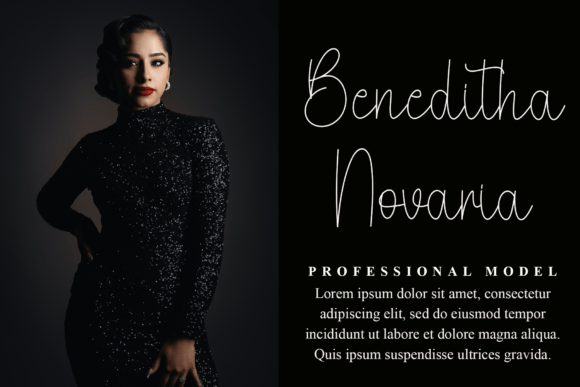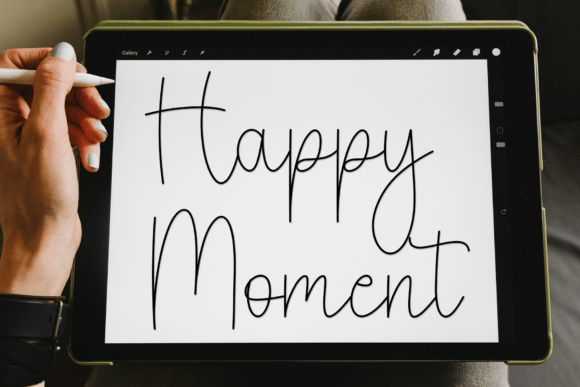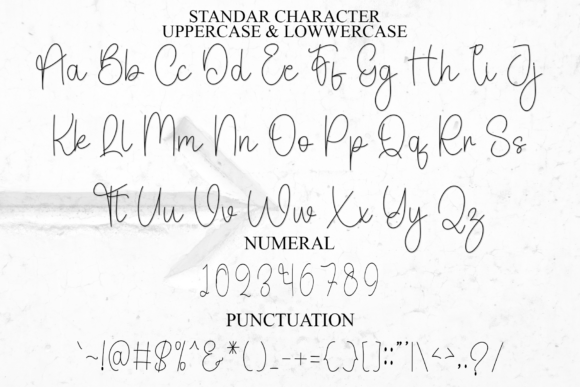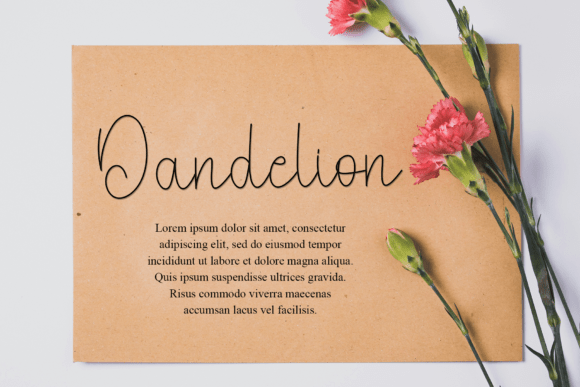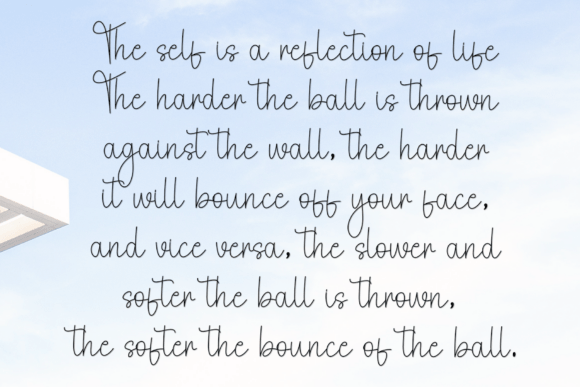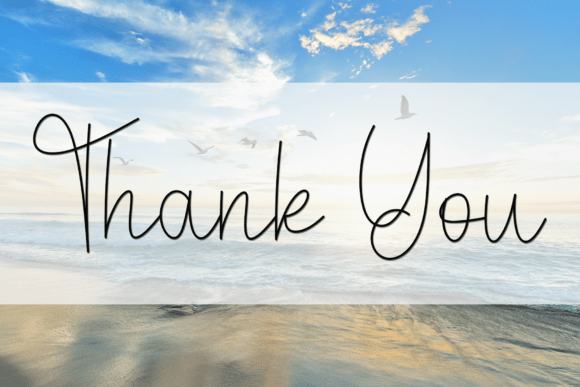
Cowgirls Font: Add a Touch of Holiday Magic to Your Designs
The holiday season is upon us, and what better way to get into the spirit than with a festive and merry typeface? Look no further than Cowgirls Font, a whimsical and decorative font that’s perfect for adding a touch of enchantment to your designs. Whether you’re a designer, crafter, or simply someone who loves the holiday season, Cowgirls Font is sure to bring a cheerful and nostalgic ambiance to your words.
What is Cowgirls Font?
Cowgirls Font is a beautifully crafted typeface that’s designed to capture the spirit of the holiday season. With its decorative elements and whimsical flair, it’s the perfect addition to any holiday-themed project. From greeting cards and gift tags to festive banners and holiday-themed crafts, Cowgirls Font is sure to add a touch of magic to your designs.
Key Features of Cowgirls Font
So, what makes Cowgirls Font so special? Here are just a few of its key features:
- Festive and Merry: Cowgirls Font is designed to capture the spirit of the holiday season, with a festive and merry vibe that’s sure to put a smile on your face.
- Decorative Elements: This font features a range of decorative elements, including swashes, ligatures, and glyphs, that add a touch of whimsy and flair to your designs.
- Perfect for Holiday Projects: Whether you’re working on a holiday-themed craft, creating festive greeting cards, or designing a holiday banner, Cowgirls Font is the perfect choice.
Why Choose Cowgirls Font?
So, why should you choose Cowgirls Font for your holiday designs? Here are just a few reasons:
- Adds a Touch of Enchantment: Cowgirls Font adds a touch of magic to your designs, making them feel more festive and fun.
- Perfect for a Range of Projects: Whether you’re working on a holiday craft, creating a festive banner, or designing greeting cards, Cowgirls Font is the perfect choice.
- Nostalgic Ambiance: Cowgirls Font brings a cheerful and nostalgic ambiance to your words, making it perfect for holiday designs.
- Type with Cowgirls Font: Use Cowgirls Font to add a touch of magic to your design. Experiment with different glyphs and ligatures to add a touch of whimsy.
Tips and Tricks for Using Cowgirls Font
Here are a few tips and tricks to help you get the most out of Cowgirls Font:
- Experiment with Different Sizes: Try using Cowgirls Font in different sizes to add visual interest to your design.
- Mix and Match Glyphs: Experiment with different glyphs and ligatures to add a touch of whimsy to your design.
- Use with Other Fonts: Try pairing Cowgirls Font with other fonts to create a unique and eye-catching design.
- Don’t Be Afraid to Get Creative: The most important thing is to have fun and get creative with Cowgirls Font. Experiment with different designs and ideas to find what works best for you.